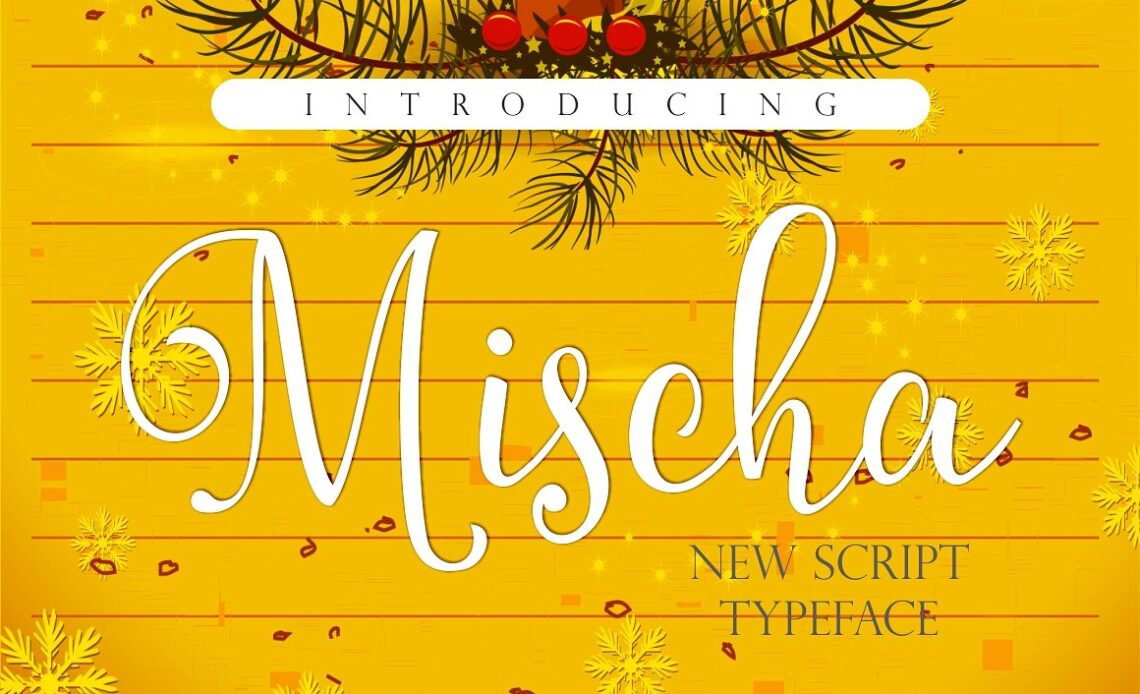
**Introducing Mischa Font: Embark on a Calligraphic Journey of Timeless Elegance**
In the realm of typography, where letters dance and words come alive, there exists a font that captivates hearts with its timeless allure – Mischa Font. A script font adorned with a unique blend of crisp lines and delicate curves, Mischa Font is a masterpiece crafted by the renowned Greenland. Prepare to be mesmerized as you delve into the world of Mischa Font, where beauty and functionality intertwine.
**Unleash Your Creativity with Mischa Font's Enduring Charm**
Mischa Font's enchanting style transcends time, making it an ideal choice for a diverse range of design projects. Whether you're a seasoned designer seeking to elevate your work or a passionate hobbyist yearning for a touch of elegance, Mischa Font is your perfect companion. Its versatility knows no bounds, effortlessly adapting to logos, branding materials, wedding invitations, social media graphics, and more. Let your imagination soar as you explore the endless possibilities that await with Mischa Font.
**Experience the Magic of Mischa Font's Emotional Resonance**
With Mischa Font, your designs will not merely convey words; they will evoke emotions. This font possesses an inherent ability to touch hearts, leaving a lasting impression on your audience. Its delicate strokes and graceful curves exude a sense of sophistication and elegance, while its underlying strength conveys a message of resilience and determination. Mischa Font is more than just a font; it's an emotional journey that captivates the senses and leaves your audience spellbound.
**Embrace the Simplicity and Elegance of Mischa Font**
In a world often cluttered with visual noise, Mischa Font offers a refreshing respite. Its clean and minimalist design allows your words to take center stage, ensuring that your message shines through with clarity and impact. Mischa Font's simplicity is its superpower, enabling it to blend seamlessly with various design aesthetics, from classic to contemporary. Whether you prefer bold statements or subtle nuances, Mischa Font adapts effortlessly to your vision, transforming your designs into masterpieces of understated elegance.
**Discover the Limitless Potential of Mischa Font**
Mischa Font is an investment in your creative endeavors, a timeless tool that will accompany you on countless design journeys. Its versatility and emotional depth make it a must-have for any designer's toolkit. Embrace the magic of Mischa Font today and unlock a world of possibilities where creativity knows no bounds.